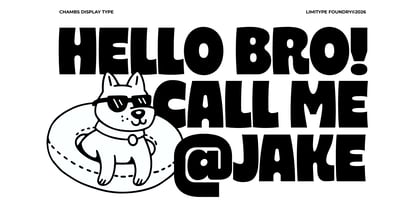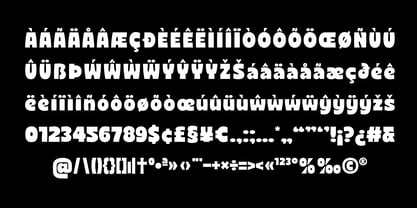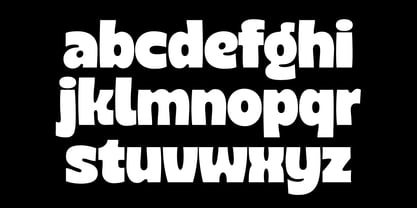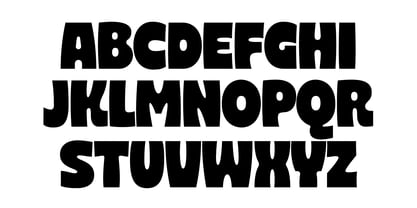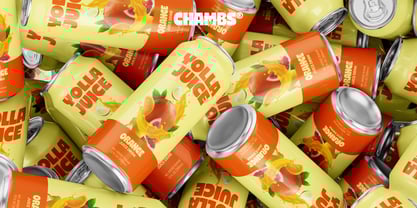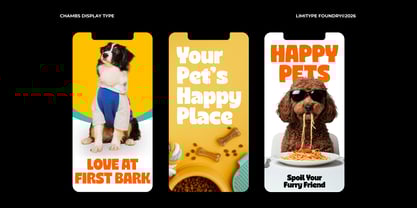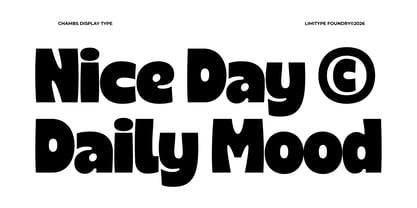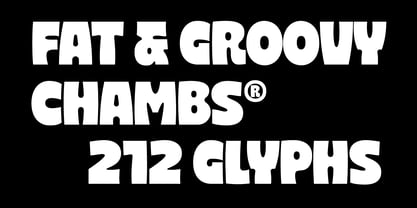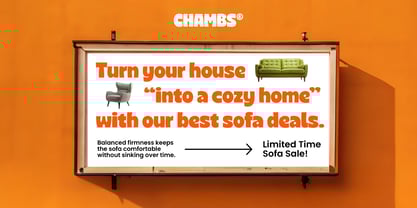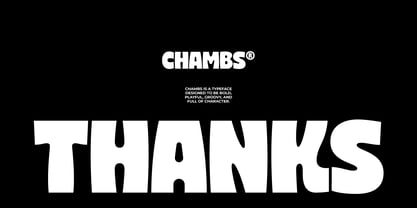
Chambs
by limitype
The Chambs Font Family was designed by Muhammad Muammar, Furqan Sudirman and published by limitype. Chambs contains 1 styles.
Chambs is a bold, chunky typeface with distinctive shapes and unique curves that radiate a strong yet playful energy. This font is highly suitable for visual identity applications, whether for logotypes, posters, covers, branding, packaging, and creative designs that aim to appear bold while remaining fun and confident. Chambs available with: Uppercase Lowercase Number Symbol Multilingual
Designers: Muhammad Muammar, Furqan Sudirman
Publisher: limitype
Foundry: limitype
Design Owner: limitype